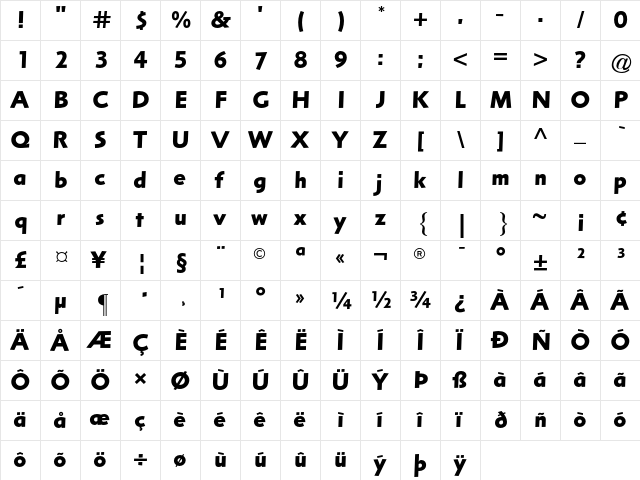
Arta AT Bold Regular
Design Context for Arta AT Bold Typeface
Arta AT Bold offers clean, dependable letterforms without strong stylistic allegiance, making it a practical choice for designers who need flexibility. Its bold stroke weight gives it real presence on the page.